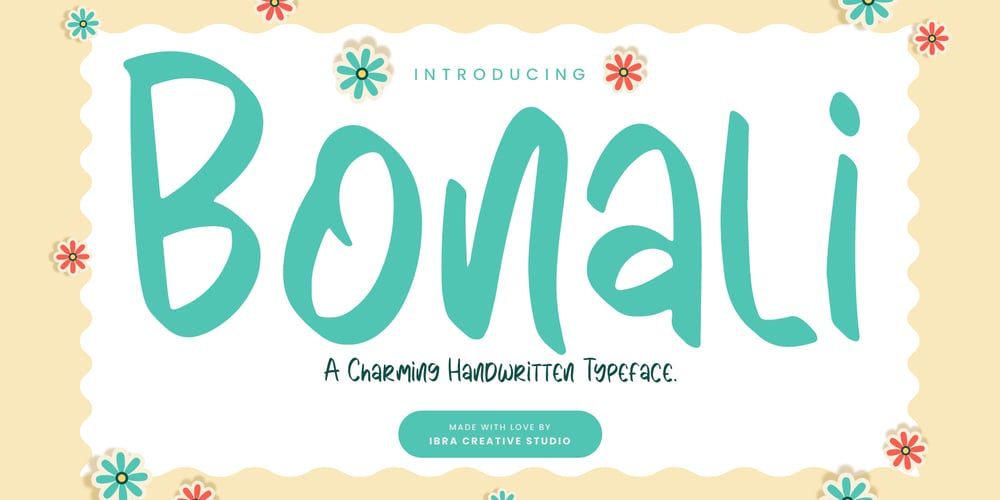
Bonali Font Family was designed by Roisatul Azizah and published by IbraCreative. Bonali contains 1 styles and family package options. Bonali – A Charming Handwritten TypefaceBonali, a charming handwritten typeface, exudes warmth and personality with its graceful strokes and playful curves. Crafted with meticulous attention to detail, each letter bears the imprint of handcrafted elegance, creating a delightful blend of authenticity and style. Whether used for invitations, branding, or creative projects, Bonali adds a touch of whimsy and character, invoking a sense of handwritten sincerity. The fluidity of its design captures the essence of pen-to-paper artistry, making it a versatile and engaging choice for those seeking a typeface that breathes life and individuality into their visual creations.Bonali is perfect for branding projects, logo, wedding designs, social media posts, advertisements, product packaging, product designs, label, photography, watermark, invitation, stationery, game, fashion and any projects.Fonts include multilingual support for; Afrikaans, Albanian, Czech, Danish, Dutch, English, Estonian, Finnish, French,German, Hungarian, Italian, Latvian, Lithuanian, Norwegian, Polish, Portuguese, Slovak, Slovenian, Spanish, Swedish.